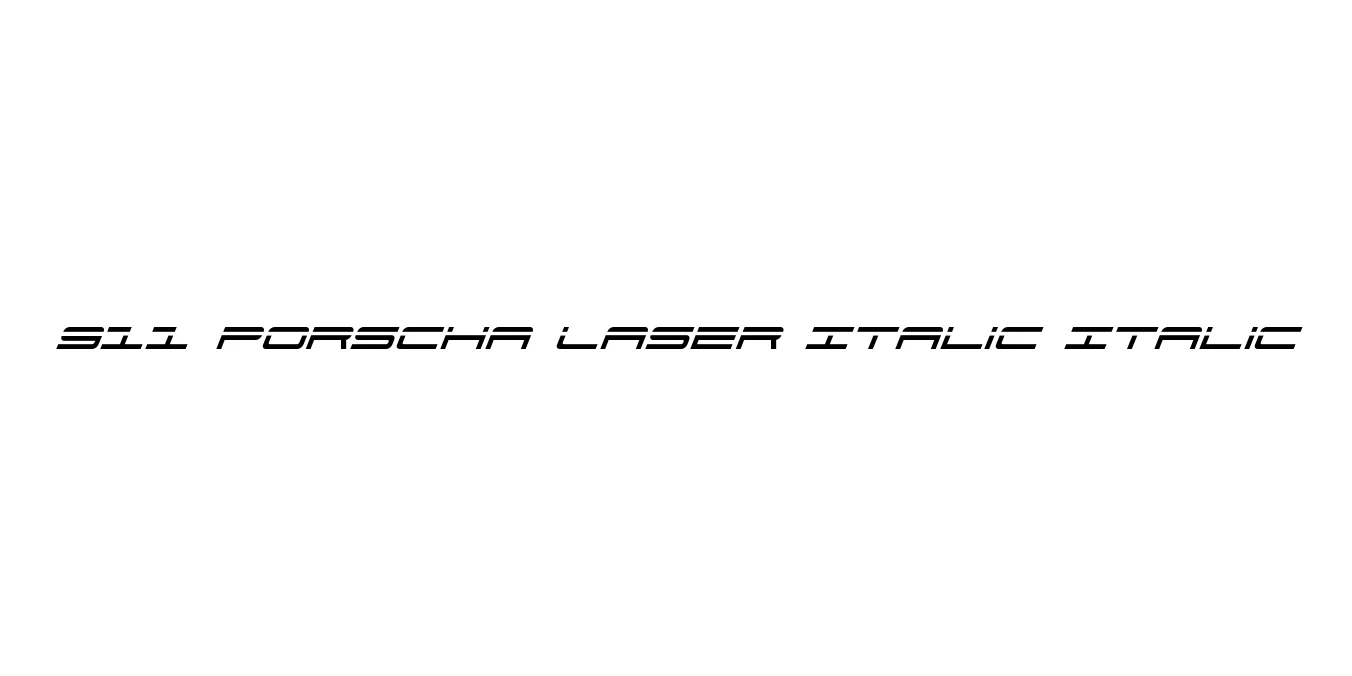
911 Porscha Laser Italic Italic
Designed by Iconian Fonts (Dan Zadorozny)
| Category | Techno / Sci-Fi |
| Designer | Iconian Fonts (Dan Zadorozny) |
911 Porscha Laser Italic Italic is a high-octane display typeface heavily inspired by the iconic branding and logotype of the Porsche automotive manufacturer. Designed to evoke a sense of velocity and precision, the font features wide proportions and a sharp, horizontal emphasis. The 'Laser' variant specifically adds internal detailing that suggests motion and light-trails, making it a favorite for projects that require a futuristic or high-speed aesthetic.
This typeface is widely utilized within the automotive tuning industry, racing game interfaces, and science-fiction-themed media. Its bold presence and italicized stance provide a dynamic energy that works exceptionally well for headlines and logos. While it is highly legible in short bursts, its primarily decorative nature makes it most effective as a display face for branding, event posters, and digital graphics.
911 Porscha Laser Italic Italic Best Uses
Ideal for car club logos, tuning shop signage, and vehicle graphics.
Perfect for racing game menus, speedometers, and title screens.
Great for high-impact headlines on event posters and sci-fi flyers.